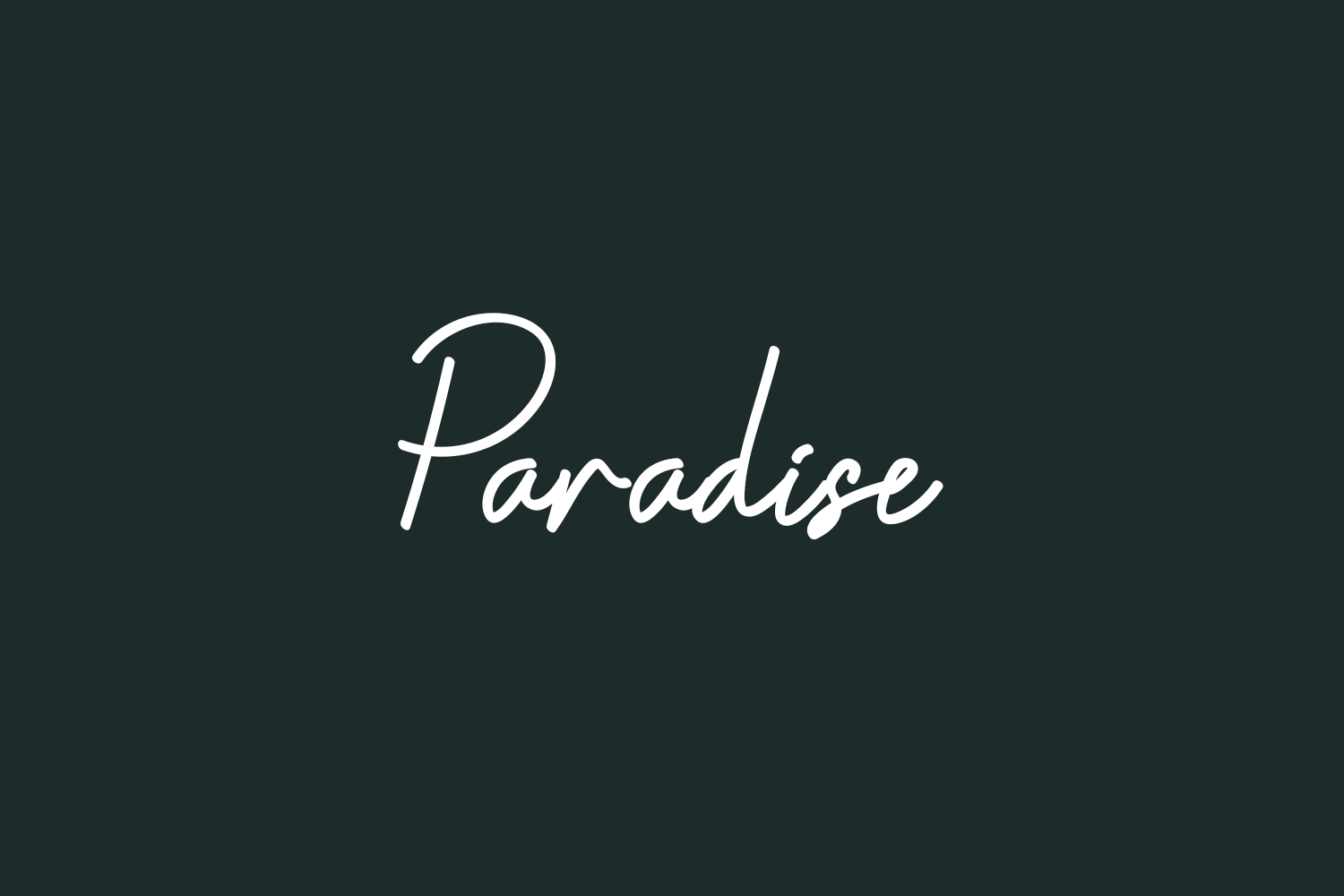
Paradise Free Font is a relaxed handwritten font. Add this font to your creative ideas and notice how it will make them stand out. Paradise Free Font was designed by Erik Studio and is free for personal use only. Please purchase the full version for commercial use.